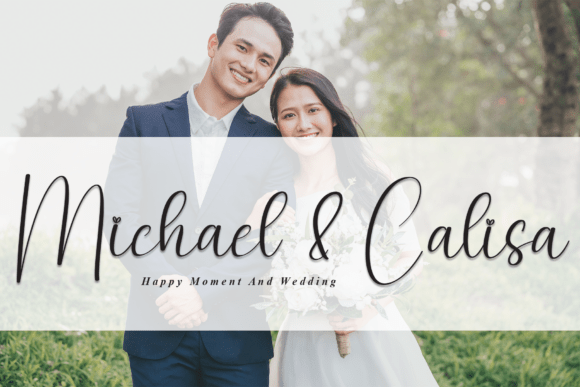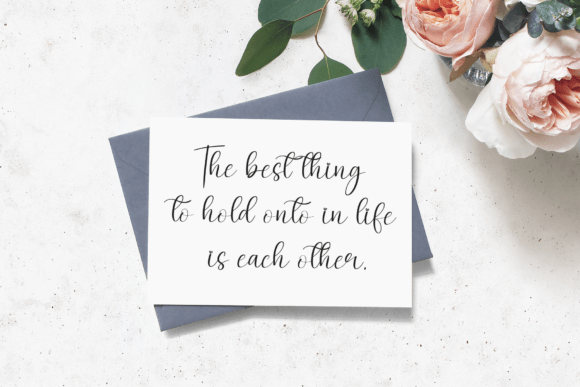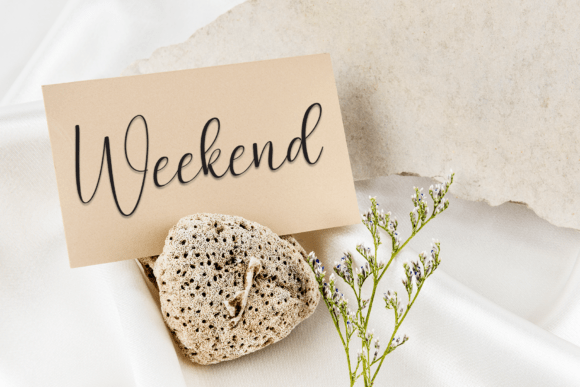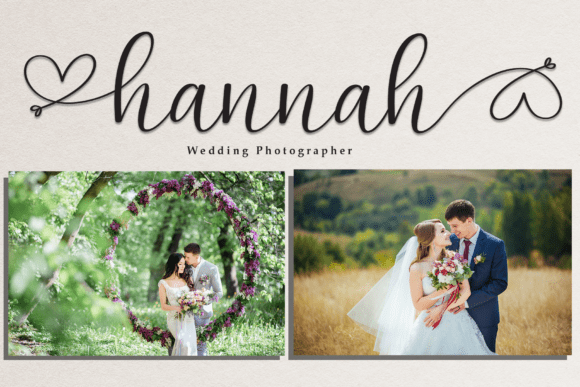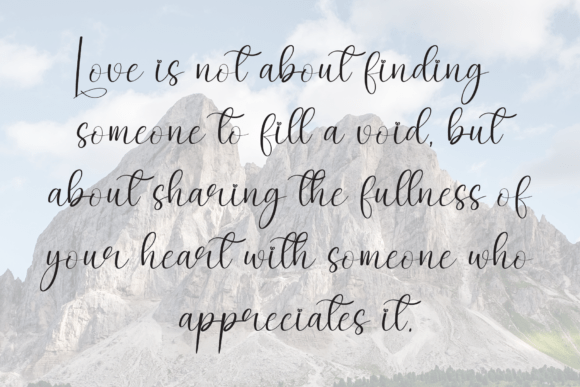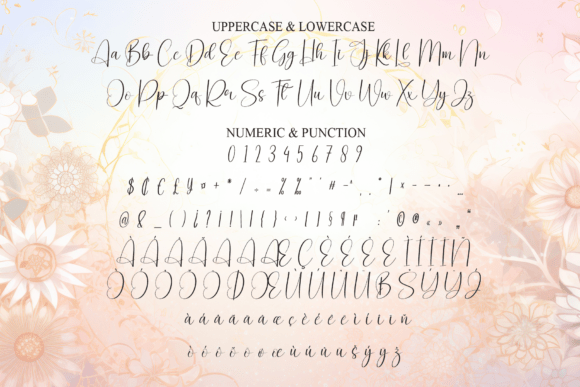
Adding a Touch of Elegance to Your Designs
There’s nothing quite like the thrill of brainstorming a new creative project – the blank page, the endless possibilities, and the excitement of bringing your vision to life. As designers, we know that the right font can make all the difference in capturing the essence of our ideas. And that’s where the Beautiful Font comes in – a stunning handwritten script font that exudes elegance and charm, perfect for adding a personal touch to invitations, branding, or social media.
This gorgeous font is a game-changer for designers looking to inject warmth and creativity into their designs. Its fluid strokes and natural flow create a captivating, sophisticated look that’s sure to leave a lasting impression. Whether you’re working on a high-end campaign or a personal project, the Beautiful Font is an invaluable tool in your design arsenal.
Beautiful Font Key Features
- Font Family: Beautiful Font is a high-quality, professional font family with 12 styles, including 6 weights and 6 italics, covering a wide range of typographic needs.
- Unique Characteristics: Beautiful Font features a unique blend of modern and classic design elements, with subtle flourishes and refined details that set it apart from other font families.
Beautiful Font Review
As a designer, I was excited to dive into the “Beautiful Font” and see what it had to offer. Here’s my honest review.
- Stunning aesthetics: The font is indeed beautiful and visually appealing, making it perfect for creative projects.
- High-quality typography: The font is well-designed and easy to read, even at smaller sizes.
- Excellent pairing options: The font comes with a variety of pairing options that complement its design.
- Limited customization: While the font looks great, there’s limited room for customization, which may be a drawback for some designers.
Overall, I think the “Beautiful Font” is a great choice for designers who need a high-quality, visually appealing font for print projects. However, the limitations may be a deal-breaker for others. If you’re looking for a font that’s both beautiful and versatile, you may want to consider other options.
Tips for Getting the Most Out of Beautiful Font
Here are some tips to help you get the most out of Beautiful Font:
- Use Beautiful Font in headings and titles to add a touch of elegance.
- Pair Beautiful Font with other elegant fonts to create a sophisticated look.
- Experiment with different font sizes and styles to find the perfect balance.
Beautiful Font is perfect for:
- Editorial and publishing projects.
Alternatives to “Beautiful Font” for Designers
Playfair Display is a luxurious, high-end font ideal for use in titles, headings, and other prominent text elements. It features elegant connections and flourishes, making it perfect for creating a sense of sophistication and refinement.
Compared to Beautiful Font, Playfair Display is more ornate and luxurious, making it suitable for high-end branding, fashion, and luxury goods.
Great Vibes is a modern, elegant font that is perfect for use in body text, headings, and titles. It features a unique blend of classic and contemporary elements, making it ideal for creating a sense of style and sophistication.
Compared to Beautiful Font, Great Vibes is more modern and versatile, making it suitable for a wide range of design projects, from fashion to technology.